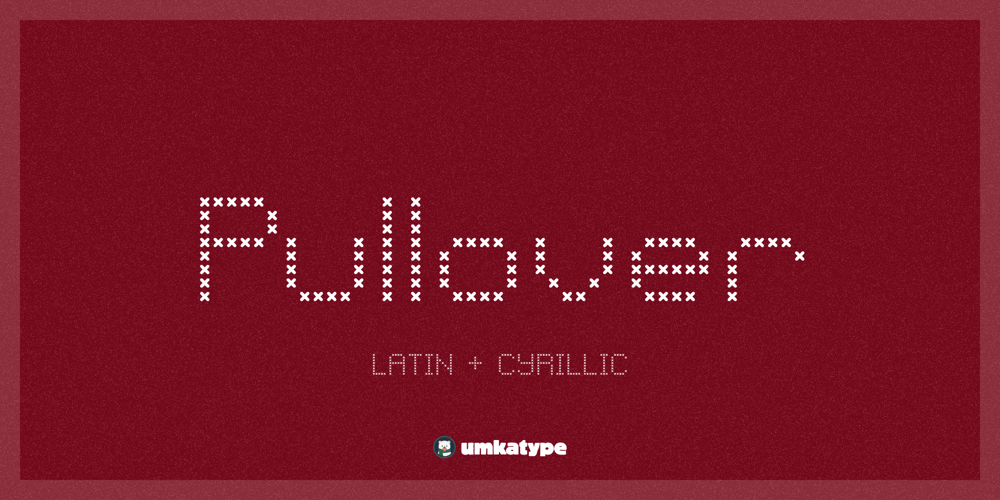
Pullover Font Family was designed by Alper Çakıcı and published by Umka Type. Pullover contains 1 styles and family package options. Pullover is a modern, versatile font with excellent kerning, making it ideal for both digital and print use. It features full support for the Cyrillic language, allowing for seamless multilingual communication. Pullover’s unique design combines classic proportions with a contemporary feel, making it stand out from other same categories fonts.Support for 96 languages: Belarusian Bosnian Bulgarian Chechen Macedonian Russian Serbian Uzbek Afrikaans Albanian Asu Basque Bemba Bena Breton Catalan Chiga Colognian Cornish Croatian Czech Danish Dutch English Estonian Faroese Filipino Finnish French Friulian Galician Ganda German Gusii Hungarian Icelandic Inari Sami Indonesian Irish Italian Jola-Fonyi Kabuverdianu Kalenjin Kinyarwanda Latvian Lithuanian Lower Sorbian Luo Luxembourgish Luyia Machame Makhuwa-Meetto Makonde Malagasy Maltese Manx Morisyen Northern Sami North Ndebele Norwegian Bokmål Norwegian Nynorsk Nyankole Oromo Polish Portuguese Quechua Romanian Romansh Rombo Rundi Rwa Samburu Sango Sangu Scottish Gaelic Sena Serbian Shambala Shona Slovak Soga Somali Spanish Swahili Swedish Swiss German Taita Teso Turkish Upper Sorbian Uzbek (Latin) Volapük Vunjo Welsh Western Frisian Zulu